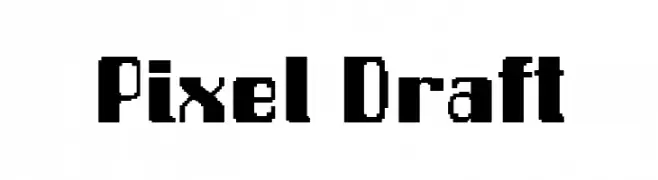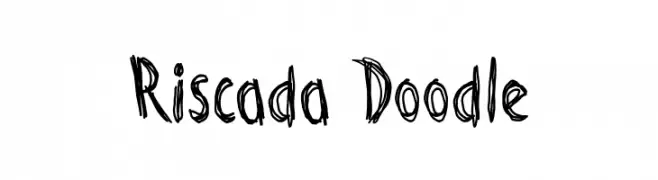
A playful, hand-drawn style font with irregular, dynamic characters.
A bold, sketch-style font with a hand-drawn, textured appearance.
A playful, hand-drawn comic book style font with dynamic, irregular characters.
A bold, cartoonish font with a playful, three-dimensional style.
A bold, distressed font with a vintage letterpress style.
A playful, hand-drawn font with a doodle-like, energetic style.
A bold, pixelated font with a retro digital aesthetic.
A playful, freehand font with a casual, handwritten style.
A playful, bold font with rounded, bubble-like characters.
A playful, hand-drawn font with tall, narrow characters and a whimsical style.